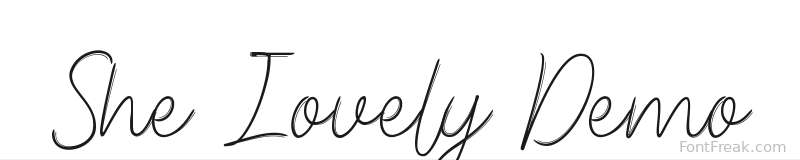
She Lovely Demo
The She Lovely Demo font by Noah Type is a delightful script typeface that exudes charm and elegance. This font features a unique handwritten style, characterized by its fluid strokes and playful curves. The moderate stroke weight provides a nice balance, ensuring readability while maintaining a whimsical feel. The letterforms have a gentle contrast, which adds a sense of sophistication without overwhelming the viewer. The spacing is well-considered, allowing for seamless connections between letters and enhancing the overall flow of text.
This font is particularly well-suited for a variety of creative applications. It shines in wedding invitations, where its romantic flair can set the perfect tone for an elegant event. Additionally, She Lovely Demo is ideal for greeting cards and personal stationery, adding a heartfelt touch to any message. Its playful nature makes it a great choice for children's book covers, capturing attention with its friendly appearance. Small business owners can also utilize this font for branding elements, such as logos or packaging design, to convey a warm and approachable image.
Targeting graphic designers, small business owners, and content creators, the She Lovely Demo font offers versatility and style. It appeals to those looking to infuse their projects with a sense of personality and warmth, making it an excellent choice for any creative endeavor.
What truly sets the She Lovely Demo font apart is its ability to blend elegance with a casual charm. This font is perfect for those who want their designs to feel both inviting and sophisticated. With the She Lovely Demo font free download available, you can easily incorporate this enchanting typeface into your next project, bringing a touch of beauty and creativity to your work.